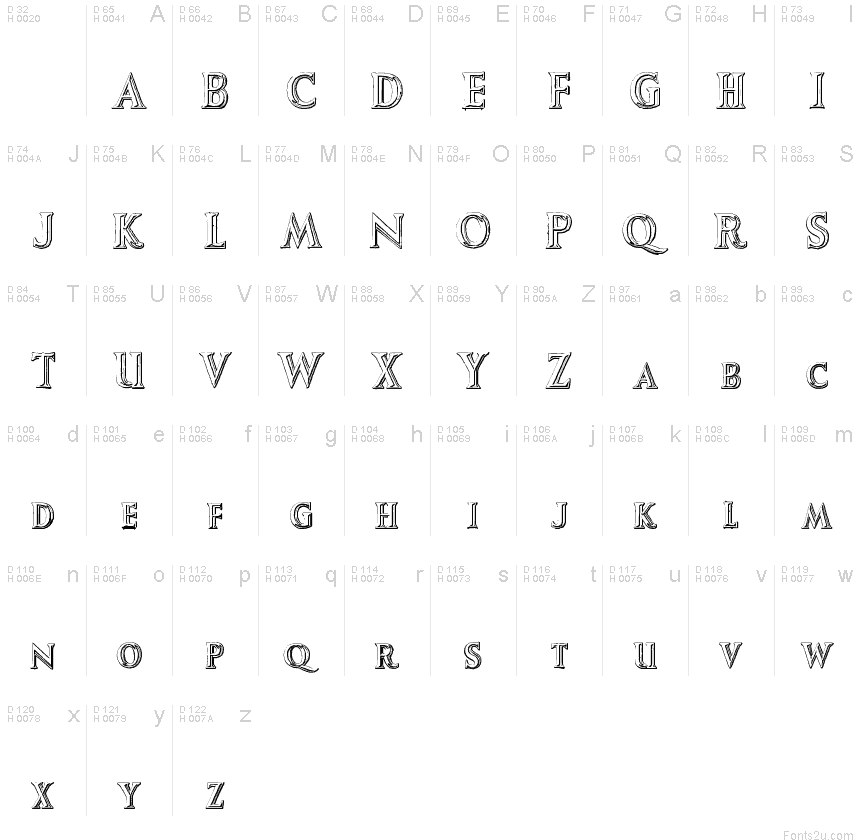
Augustus Beveled by Paulo W of Intellecta Design is a free 3D outlined display font with the bearing of carved Roman capitals. Its broad serifs and changing stroke widths create a formal, monumental silhouette. Fine inner lines give each letter a hand-cut, beveled surface.
Heritage brands and classical venues could use it for wine labels, museum posters, or theatrical programs. The carved detailing lets a name function like an engraved shop sign or architectural emblem rather than ordinary lettering.